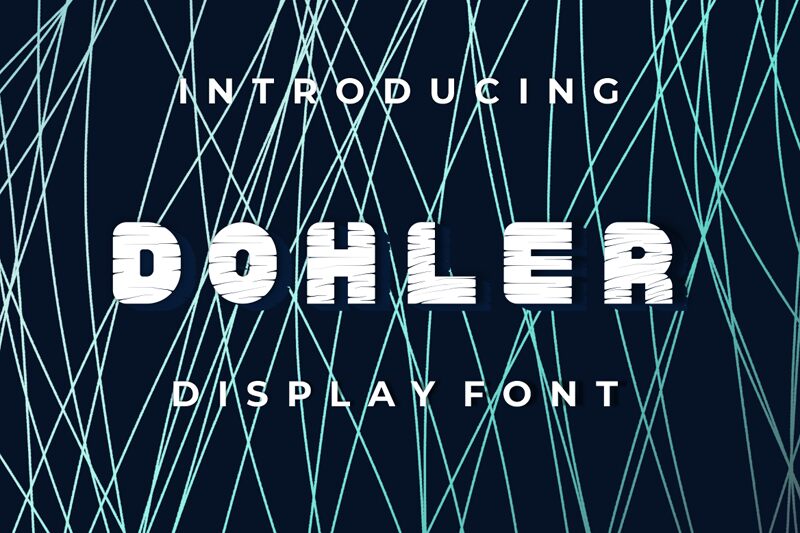
Dohler font by Gilang Ternadho is a display type with an eye-catching look. The font has the rough texture of old print styles with distressed elements that add to any visual. It also has a bold weight and expanded width which help it seize the absolute attention of an audience.
Make use of this industrial-feel font in your brand identity design, billboard creation, poster design, film titles design, newspaper or magazine cover design, web page headlines (that stand out), signage development, flyer design, book cover or interior page decoration ideas.